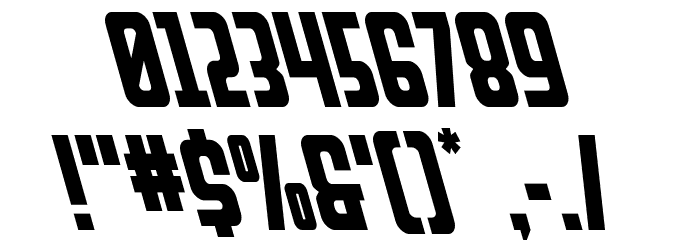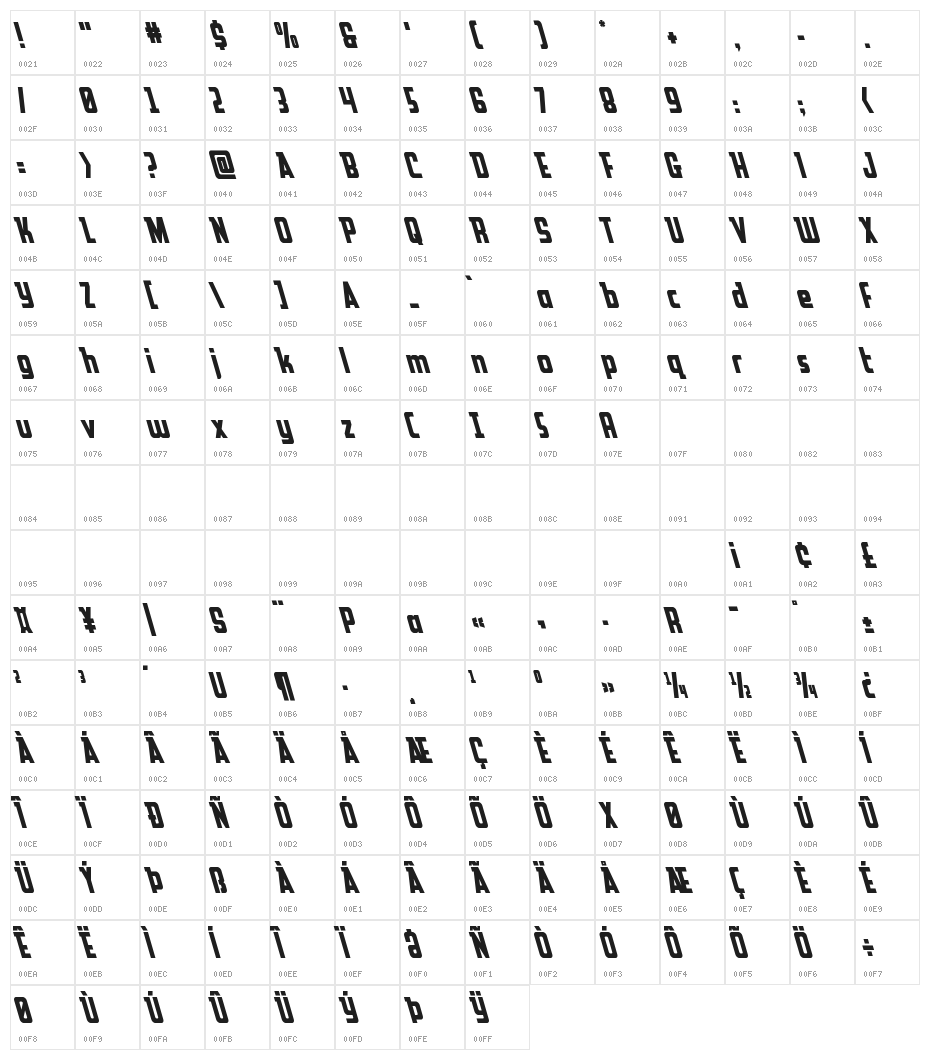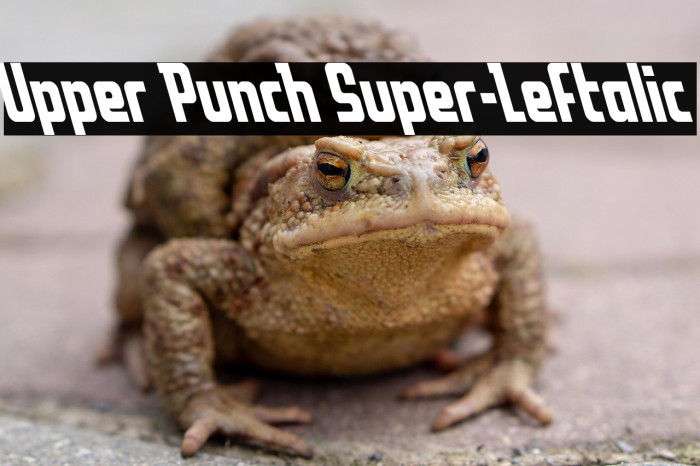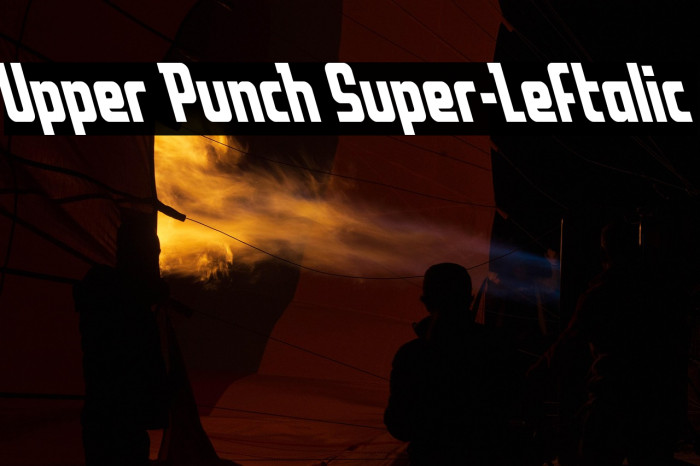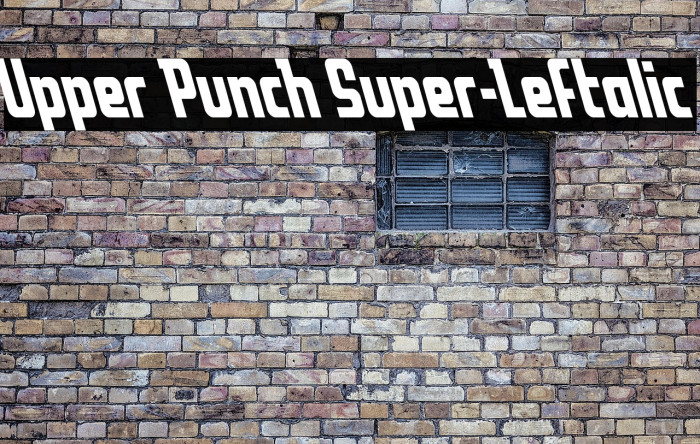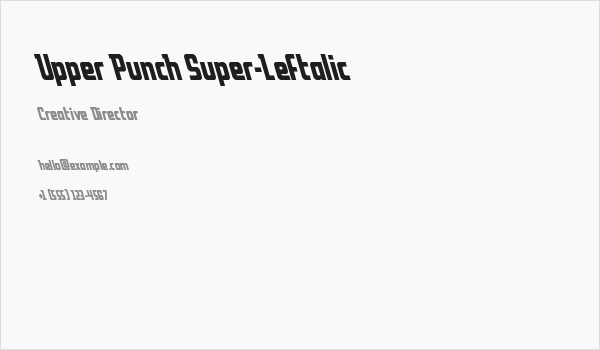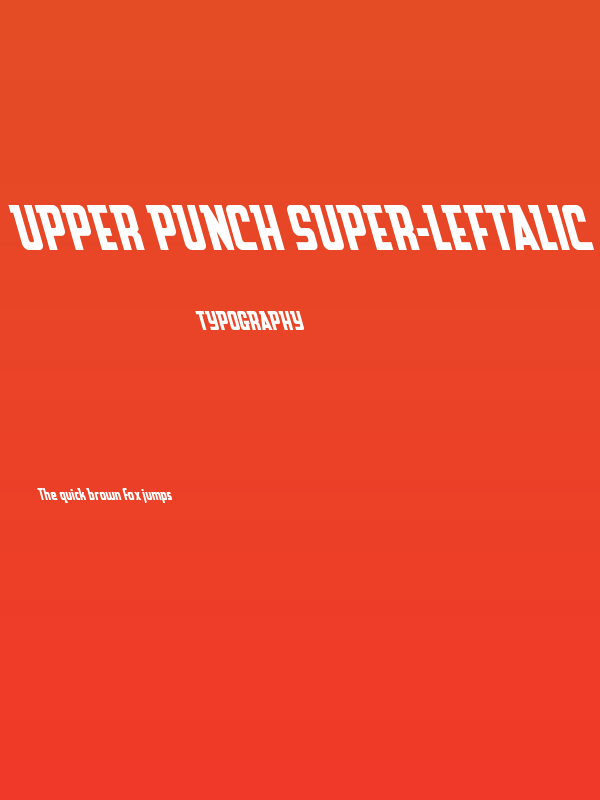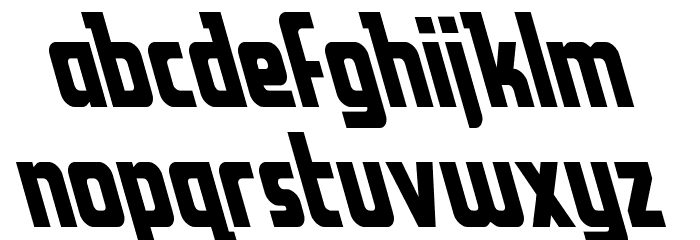
Upper Punch Super-Leftalic Font
Upper Punch Super-Leftalic Description
This font features a bold and dynamic style with a strong, angular design. The characters are slanted, giving an italicized appearance that adds a sense of motion and energy. The uppercase letters are particularly striking, with a robust presence that commands attention. The lowercase letters maintain the same boldness, ensuring consistency across text. Numbers and special characters are equally bold and angular, making them stand out. The overall design is modern and impactful, suitable for projects that require a strong visual statement.
| Proposed Projects | Ideal for sports branding, action movie posters, dynamic advertising campaigns, and any project needing a bold, energetic typeface. |